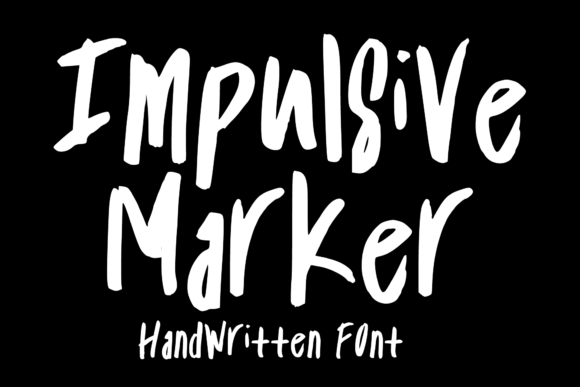
Journey into a realm of limitless creativity with Impulsive Marker, the most whimsical and enchanting script font, meticulously crafted by the visionary artist MVMET. This extraordinary font, bursting with exuberance and spontaneity, captures the boundless energy of childhood dreams and whimsical adventures.
Impulsive Marker is not just a font; it's an invitation to unlock your imagination and embark on a voyage of artistic expression. Elevate your designs to dizzying heights with this font, letting your creativity flow effortlessly like a river tracing its path through a tranquil valley.
With Impulsive Marker, transform ordinary words into captivating stories, making your designs dance with delight. It's the perfect font for creating children's books that ignite young minds, T-shirts that spark conversations, and logos that leave an indelible mark.
Whether you're a seasoned designer or just starting your creative journey, Impulsive Marker is your trusted companion. Its user-friendly nature makes it accessible to all, allowing you to weave your creative magic effortlessly.
So, dive into the world of Impulsive Marker and watch your designs flourish into masterpieces. Embrace the spontaneous spirit of this font and let your imagination run wild. The possibilities are endless, just like the joy and wonder that await you.